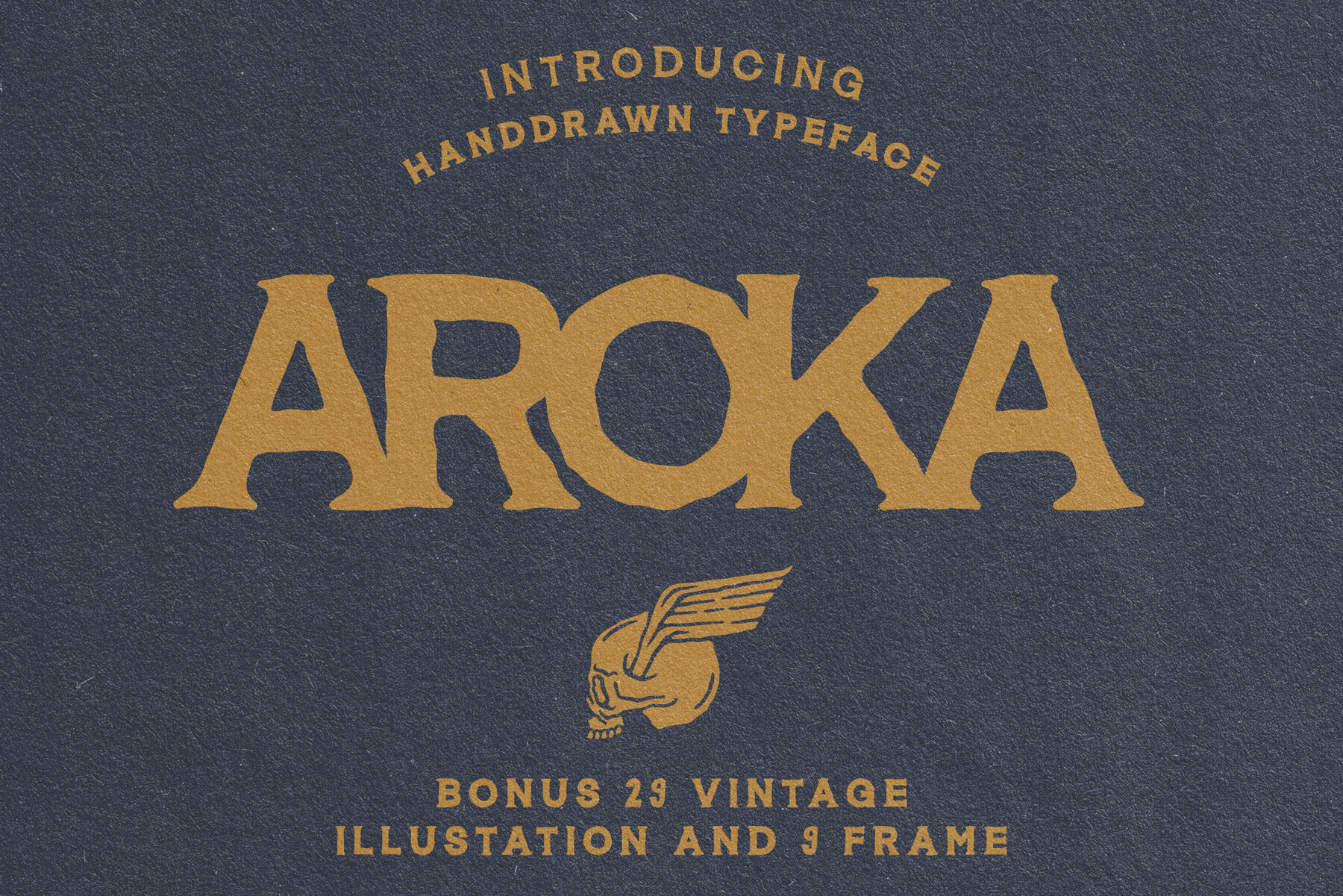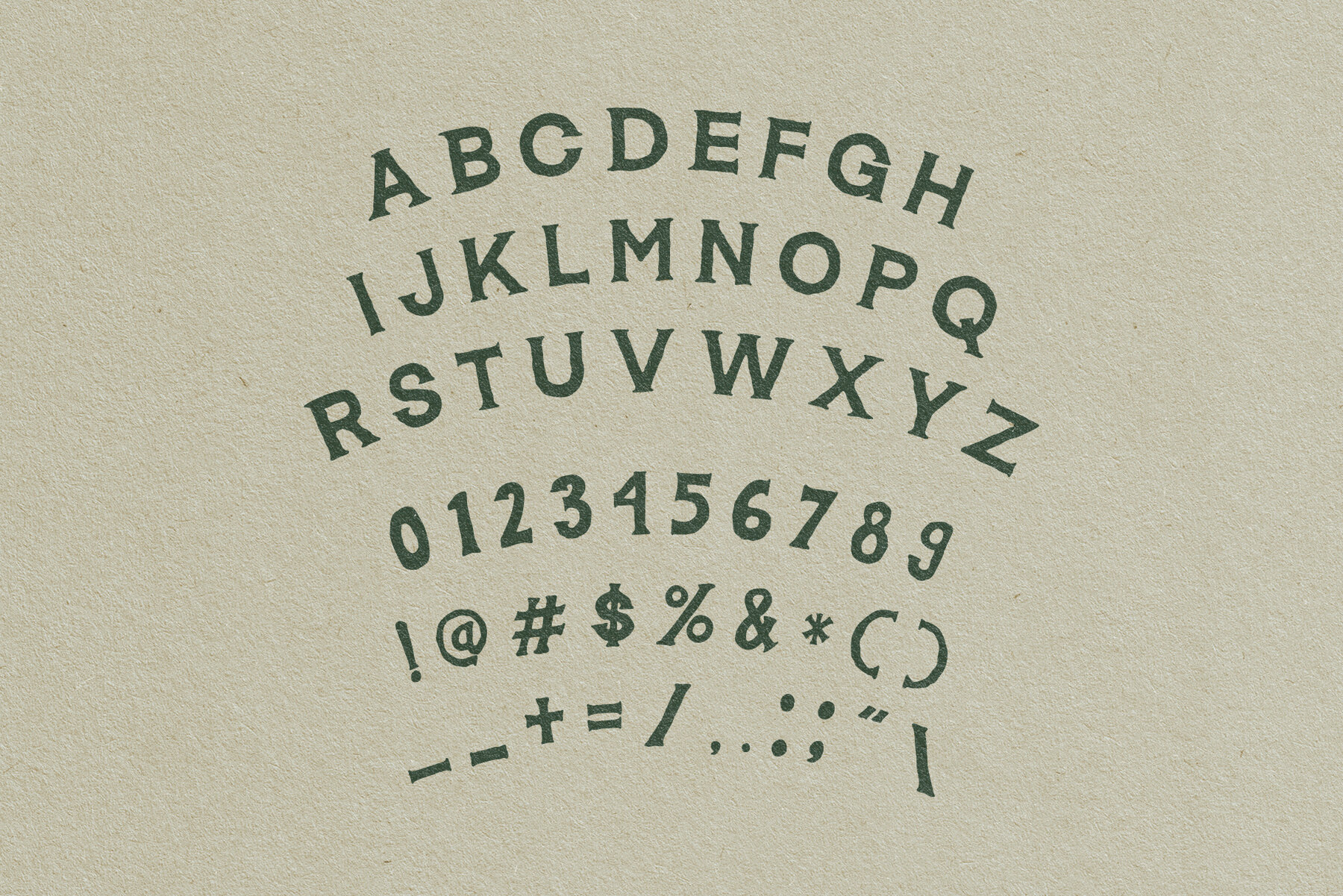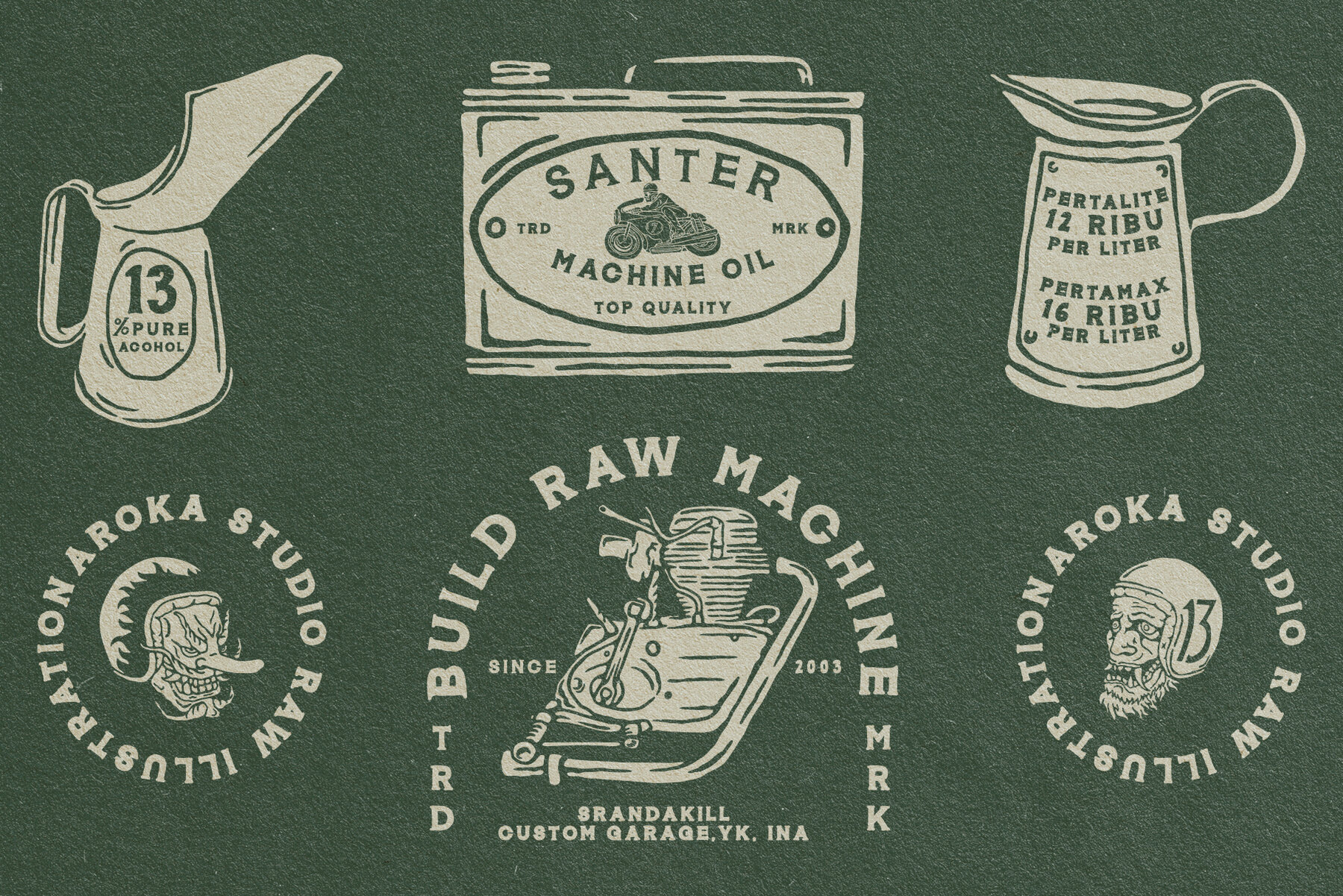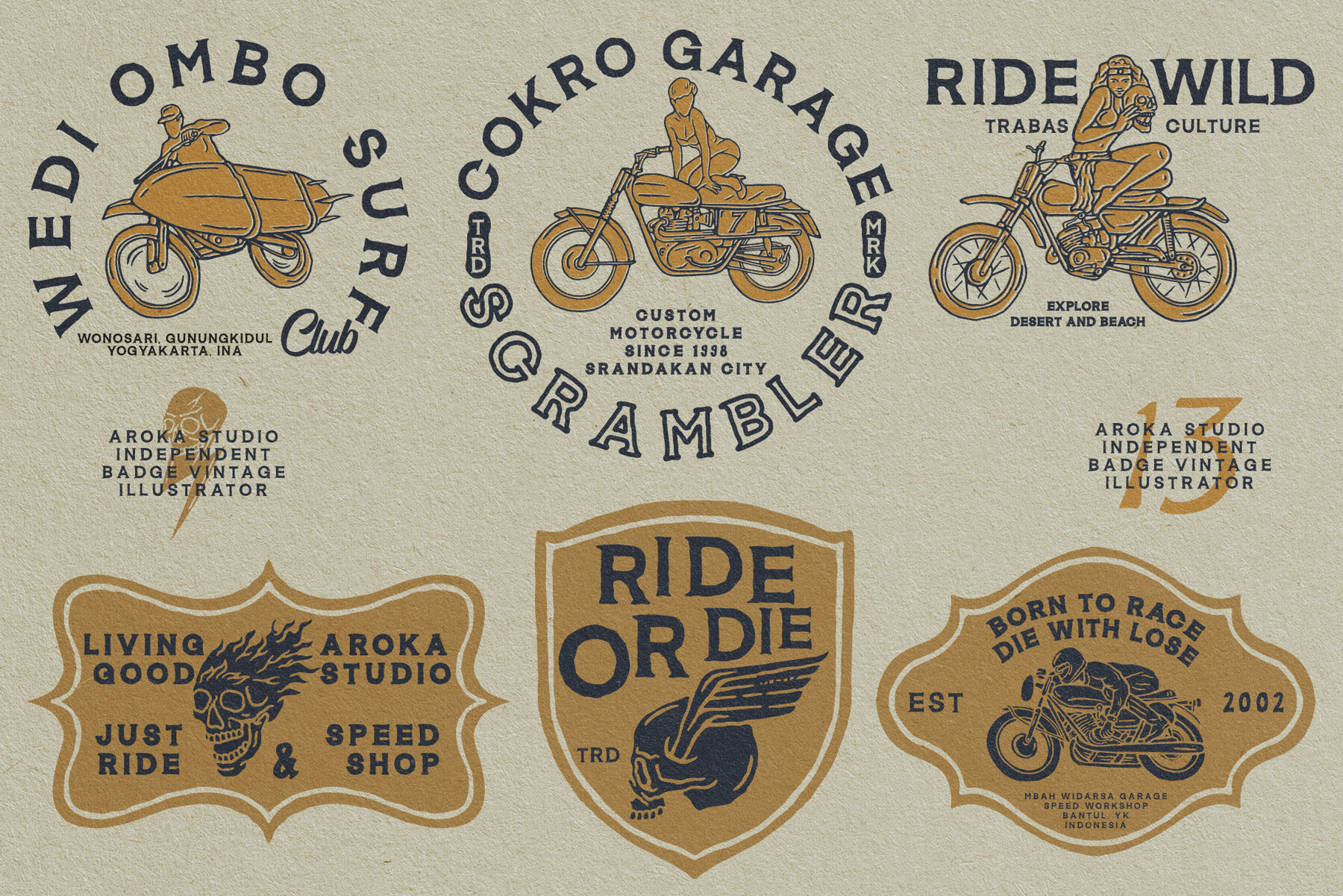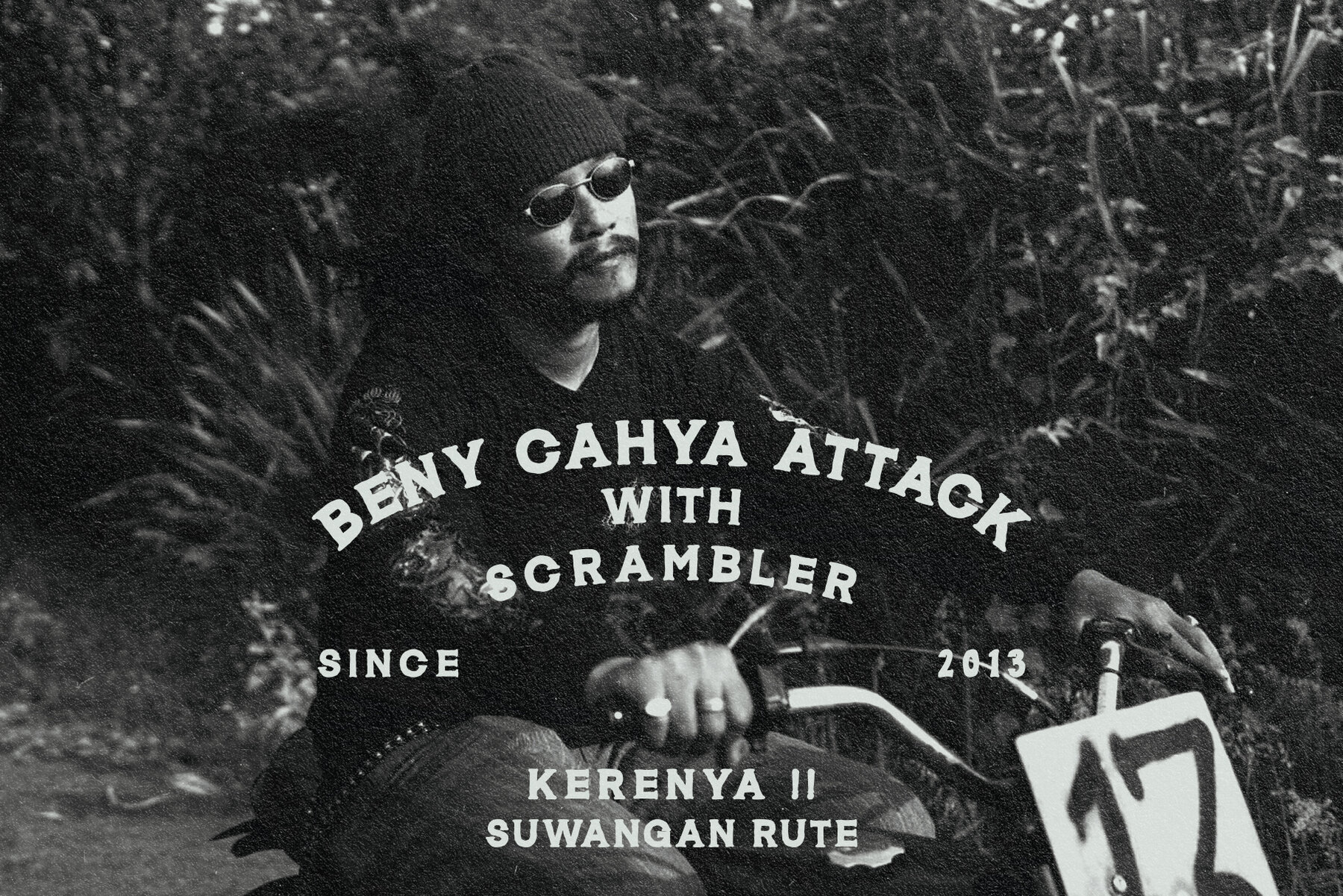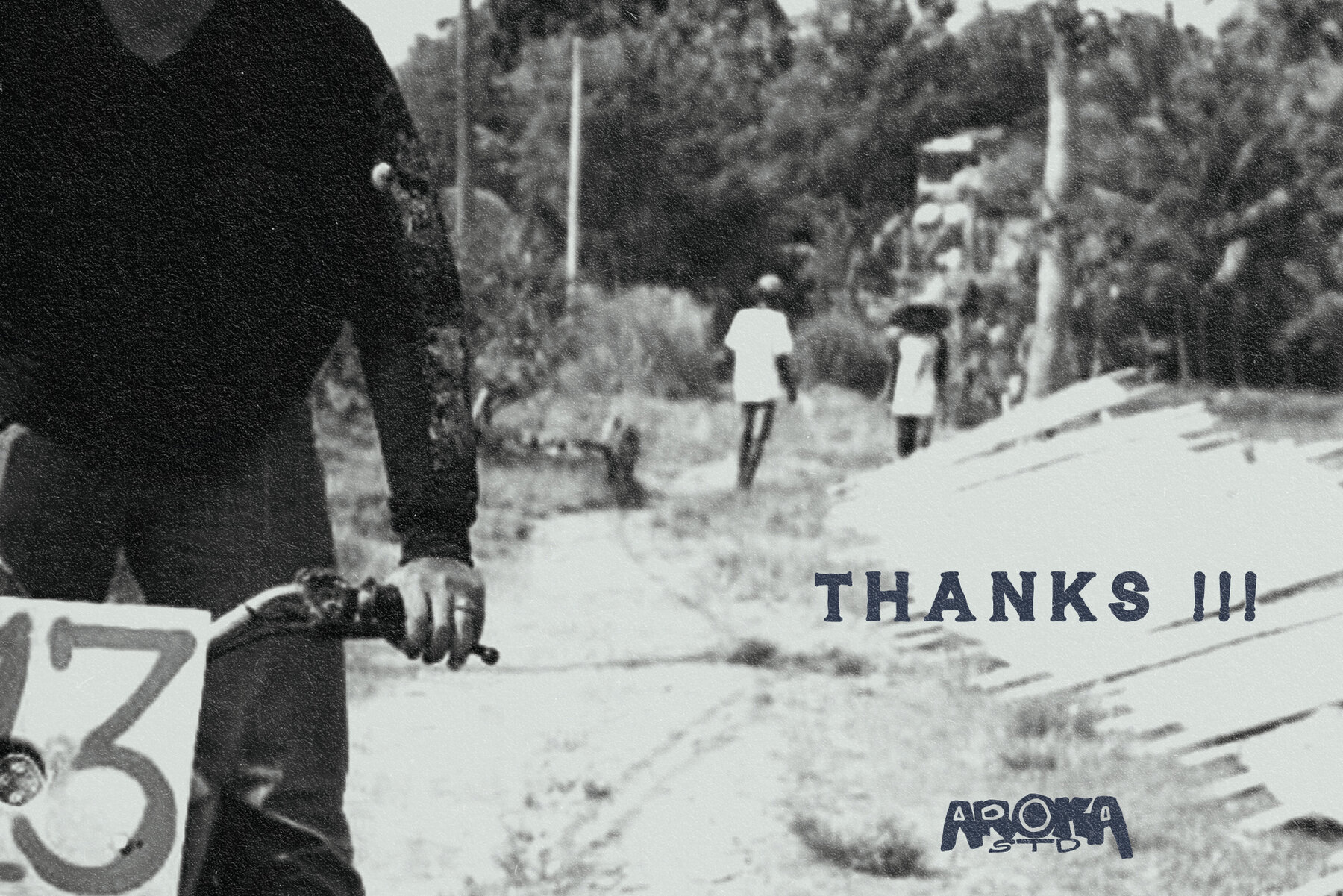
Aroka: Vintage-Inspired Design Resource
Immerse your projects in nostalgia with Aroka, a design asset inspired by the timeless charm of Custom Culture Vintage. Ideal for infusing a collegiate flair into your work, this resource is perfect for those who appreciate a nod to the past in their creative endeavors.
• Custom Culture Vintage Aesthetic – Adds a classic, nostalgic look to any design.
• Bonus Illustration – Complimentary artwork included for versatile use.